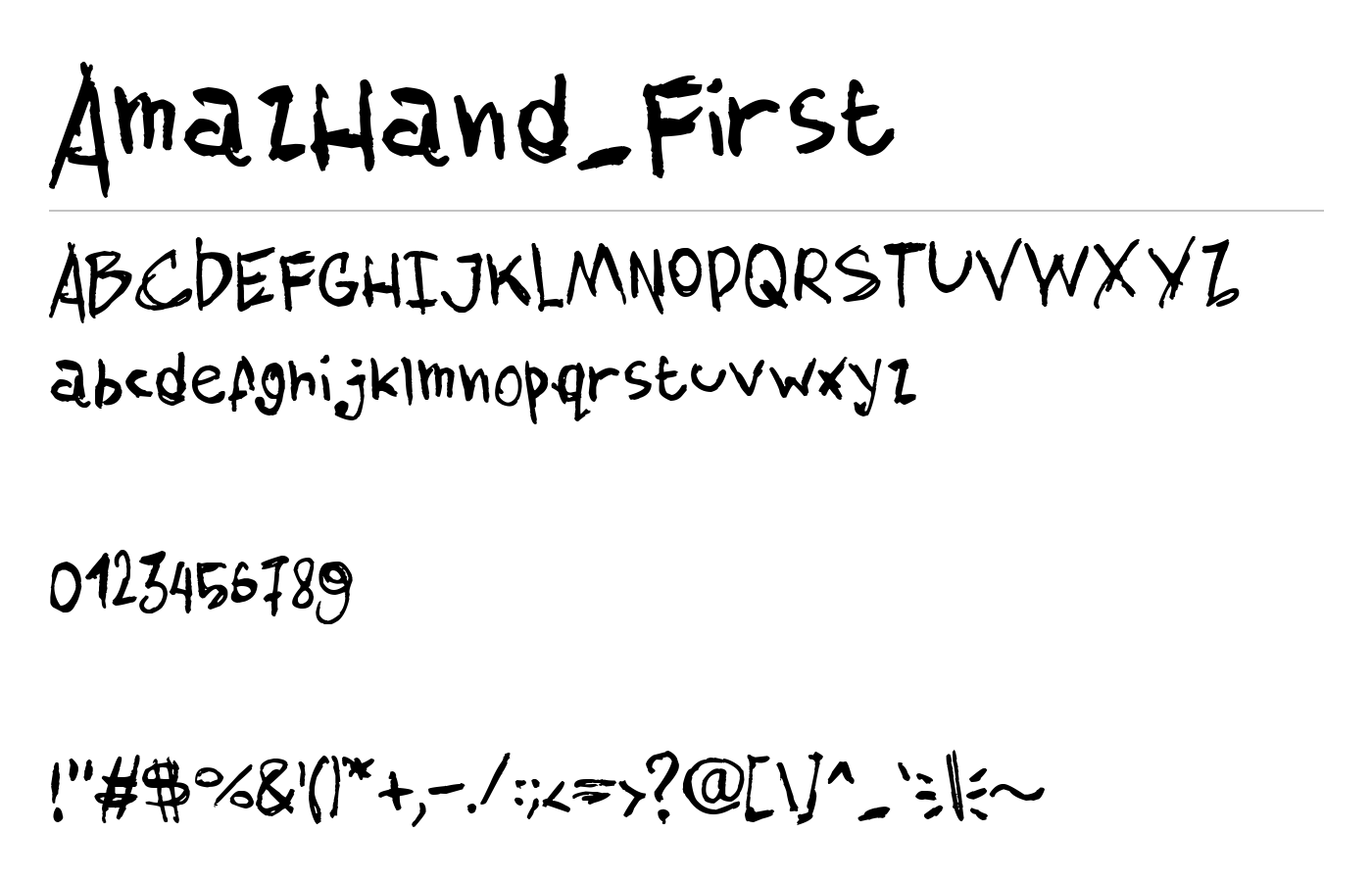
AmazHand_First is an expressive handwritten-style font with a textured, rough ink appearance that adds a personal and creative touch. Its irregular shapes and casual strokes make it feel playful and approachable, perfect for designs needing an authentic, handcrafted vibe. This font works well in informal settings like invitations, posters, or branding for artistic and youth-focused projects.
AmazHand_First Font
About AmazHand_First Font
| Font family | AmazHand_First Font |